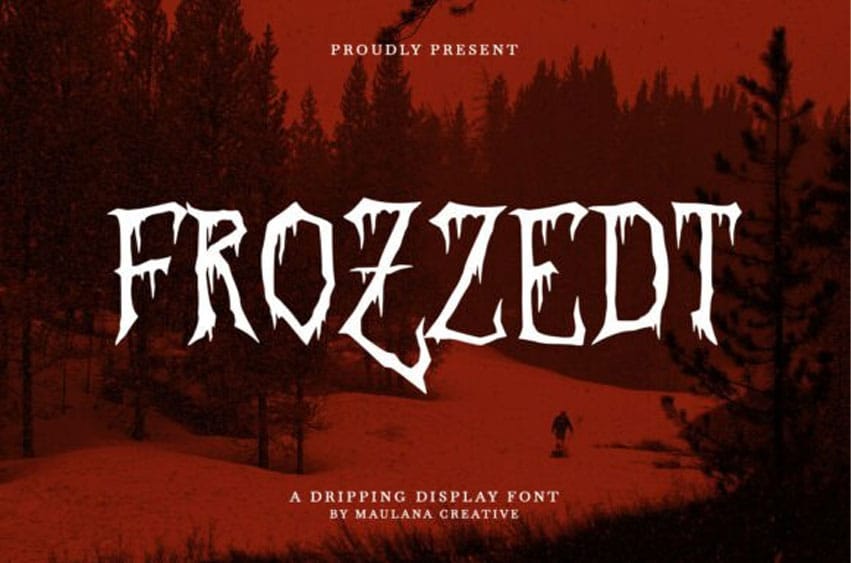
Frozzedt Font is a bold, dripping, handmade display font with playful characters and creative alternates, designed to bring a unique flair to your projects. Supporting over 100 languages, Frozzedt is versatile and perfect for a wide range of uses — from logo design, social media graphics, and movie or book titles to short captions, long-form text, or as a striking secondary font alongside sans or serif typefaces. Elevate your creative work and make a bold statement with Frozzedt.
Frozzedt Font Preview